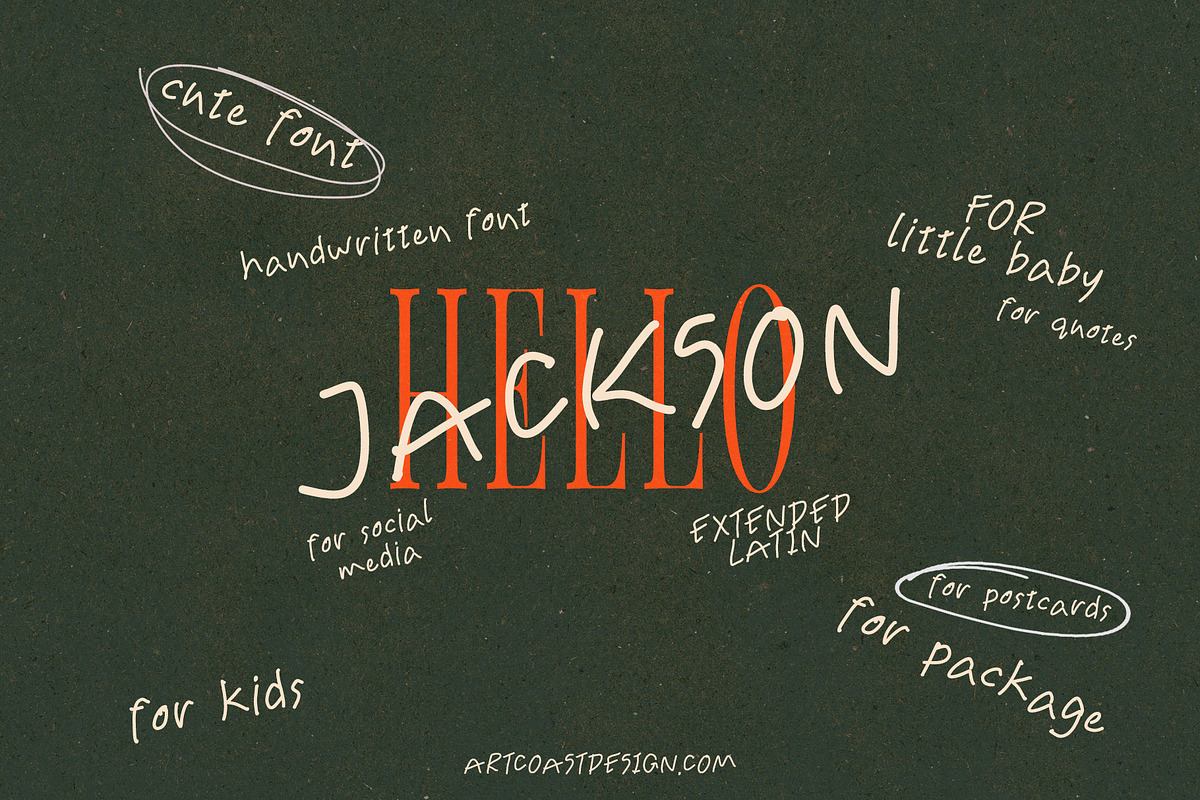
SA Jackson Handwritten Font Free Download
SA Jackson Handwritten Font Free Download is a casual and expressive script typeface that captures the essence of natural handwriting. With its slightly rough edges and relaxed flow, this font is perfect for personal branding, social media graphics, lifestyle blogs, and creative projects that call for an authentic, human touch.
SA Jackson Handwritten Font Free Download adds warmth and personality to your designs, making them feel more approachable and unique. Whether you're designing custom merchandise, quote graphics, or handwritten-style logos, this font brings a creative edge to your work. Download it now and give your next project that effortlessly cool, handwritten vibe.